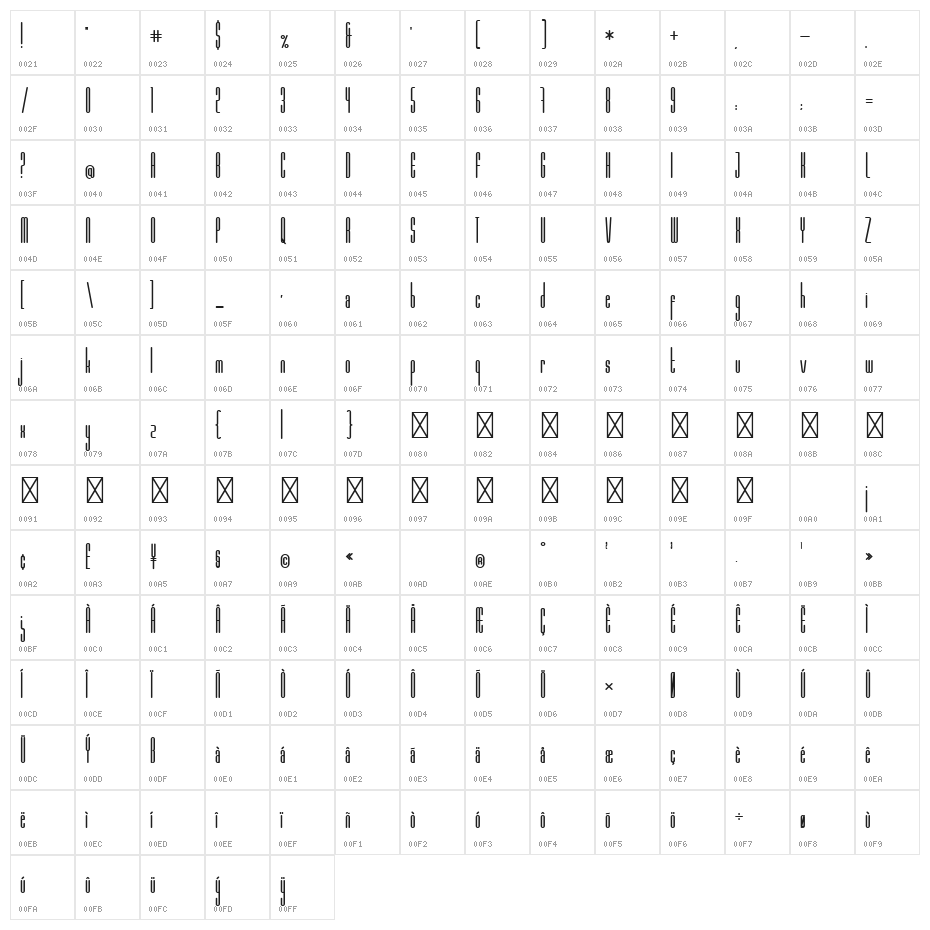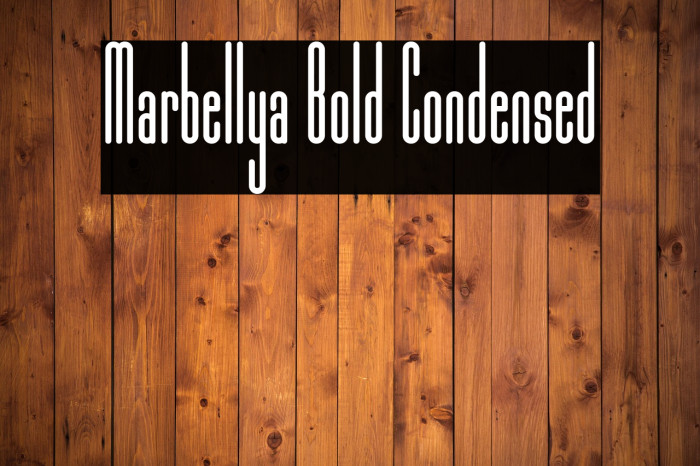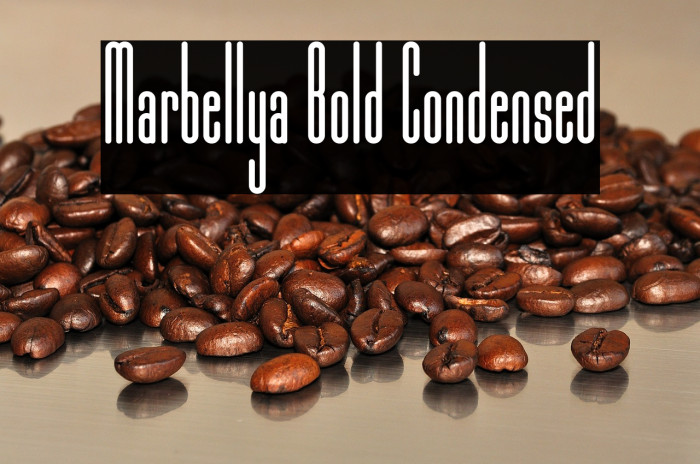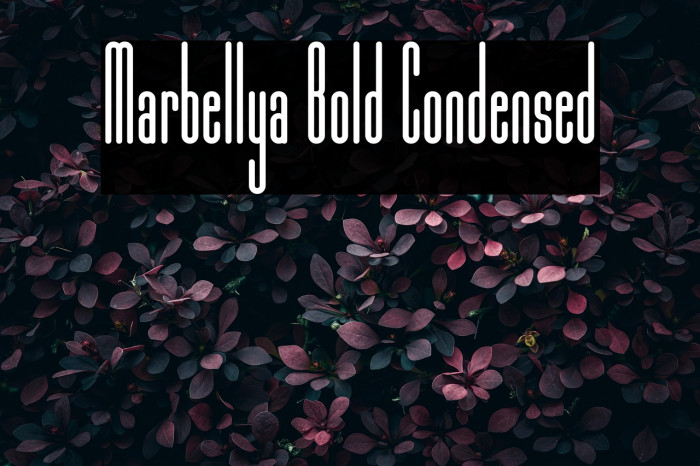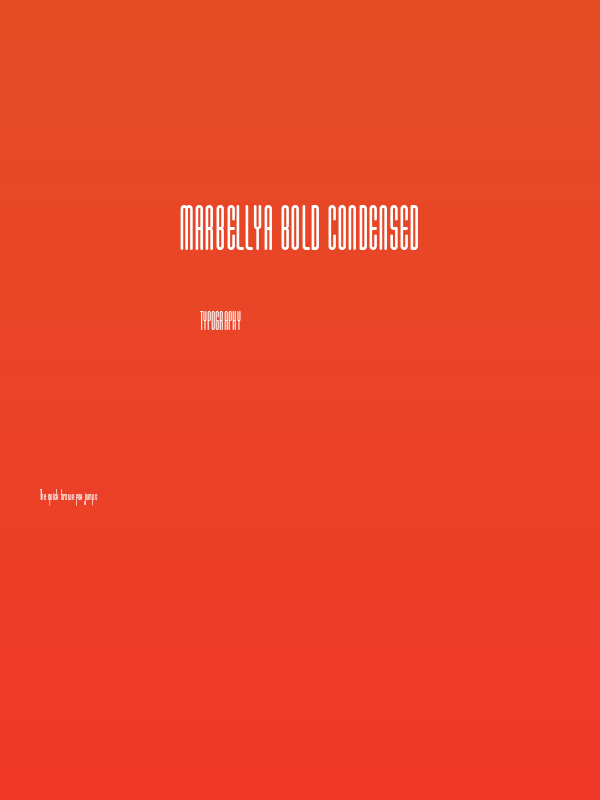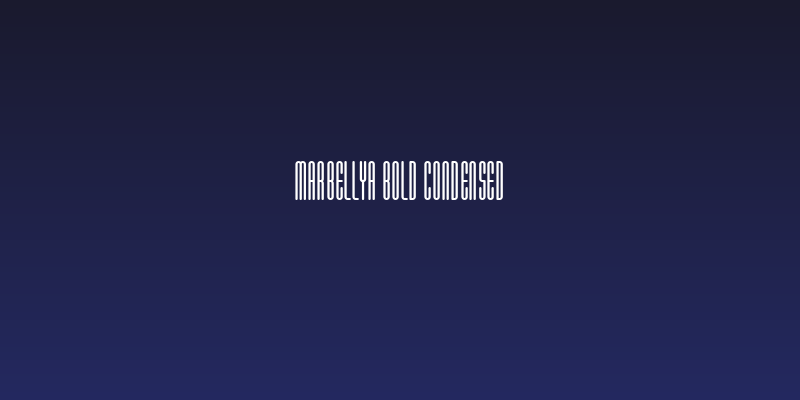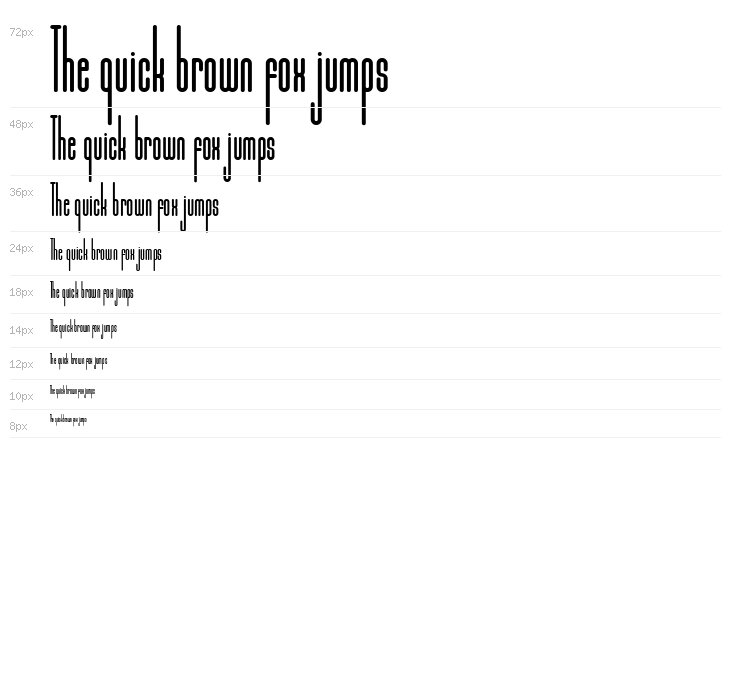
Marbellya Bold Condensed Font
Marbellya Bold Condensed Description
This font features a bold and condensed style, characterized by tall, narrow letters with a modern and sleek appearance. The uppercase and lowercase letters maintain a consistent height, contributing to a uniform look. The numerals are similarly elongated, enhancing the condensed aesthetic. Special characters are designed to match the overall style, with clean lines and minimal embellishments. The font's design is suitable for creating impactful headlines or titles, where space is limited but a strong visual presence is required.
| Proposed Projects | Ideal for posters, branding, and editorial design where a strong, modern look is desired. |